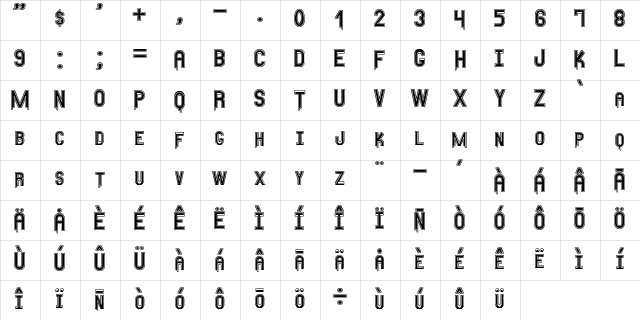
Any Meritous St Regular
Design Context for Any Meritous St Typeface
Any Meritous St is a composed and adaptable typeface that performs quietly and consistently across a wide range of design contexts.
Pro Tip: Use Any Meritous St in both headline and body roles to test its range before committing to a single application.